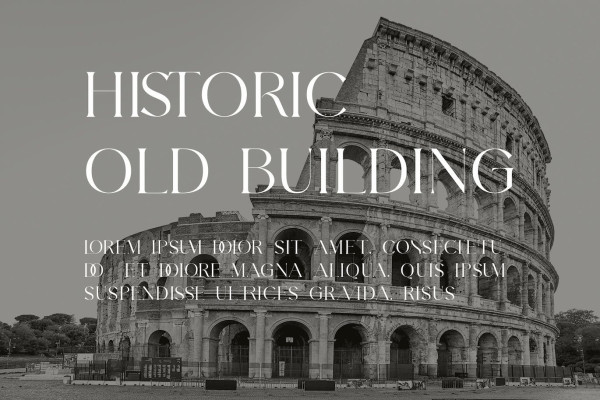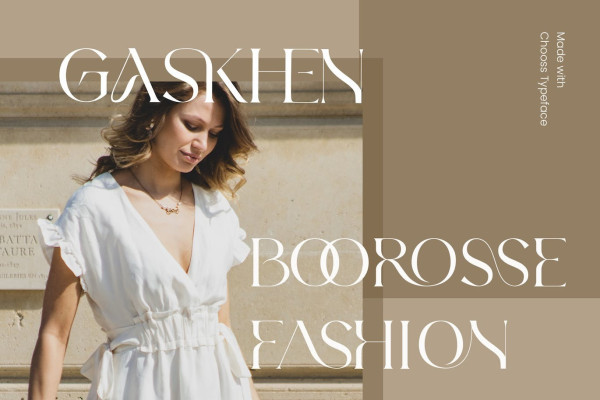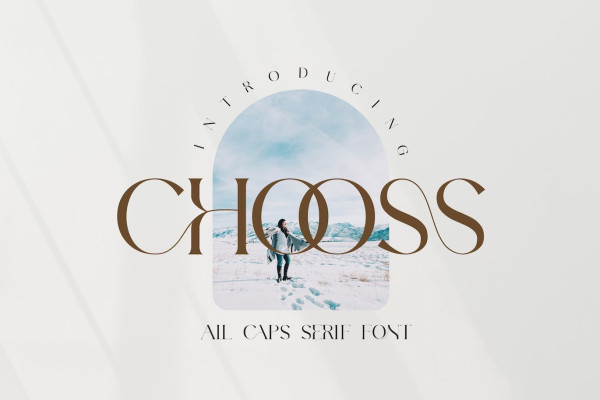
Chooss Font
Chooss Font is a balanced, smooth, elegant and stylish serif font. He has a beautiful character. It fits perfectly with invitation card designs, company logos, movie titles, movie names, business cards, book titles, brand names and various other designs. Chooss Serif is a subtle serif font that exudes sophistication and elegance. Its stylish alternations and ligatures make this font the perfect partner for any project.